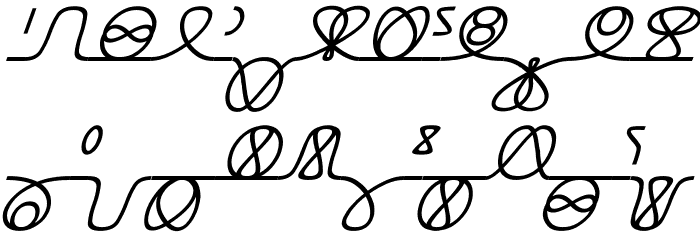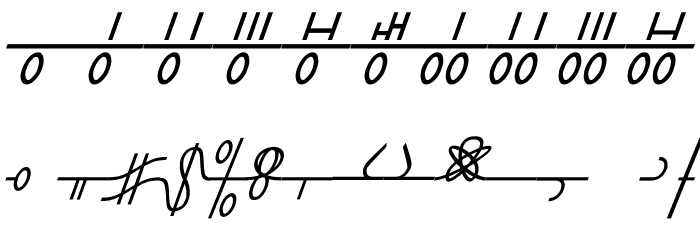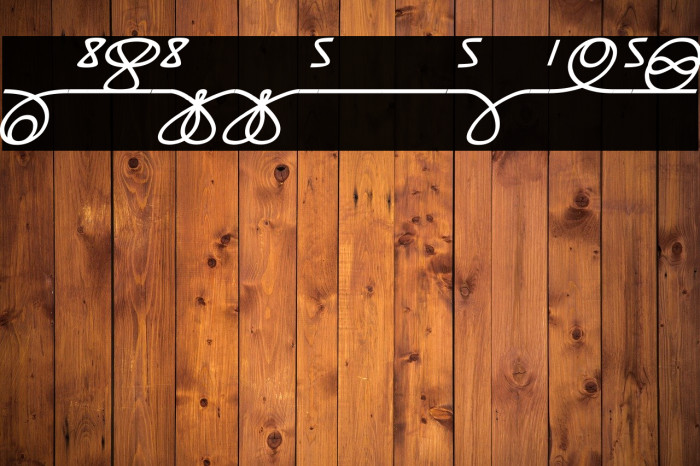
Numukki Italic Font
This font features an intricate and highly decorative script style, characterized by elaborate loops and swirls that create a sense of fluidity and elegance. Each character is uniquely crafted with a high degree of ornamentation, making it suitable for artistic and creative projects. The font's design emphasizes a whimsical and playful aesthetic, with a consistent flow throughout the alphabet. Its complex structure may pose challenges for readability in smaller sizes, but it excels in creating a visually striking impact when used in larger formats.
An intricate, decorative script font with elaborate loops and swirls.
- Font: Numukki Italic
- Proposed Projects: Ideal for wedding invitations, artistic posters, branding for luxury products, or any project requiring a touch of elegance and creativity.
- Category: Script
- Character Spacing: Tight
- Use Case: Logos, Invitations, Artistic projects